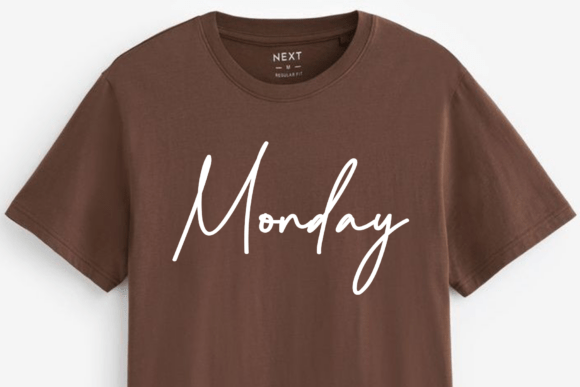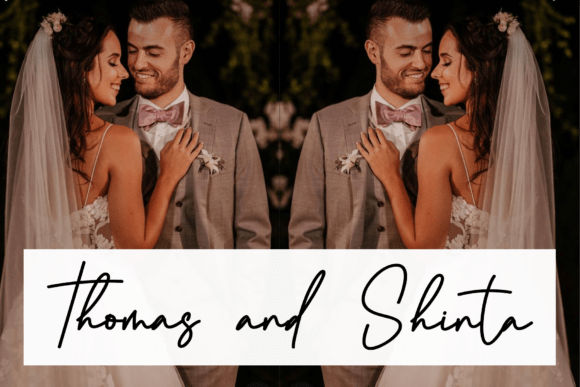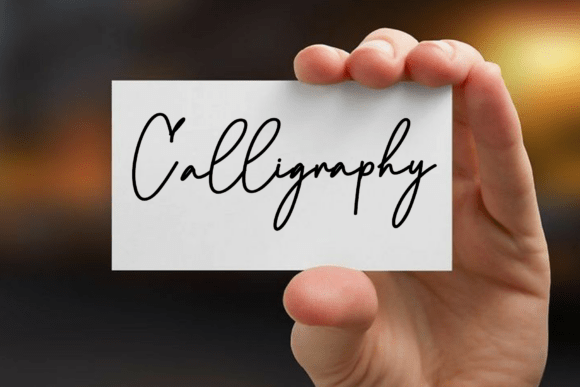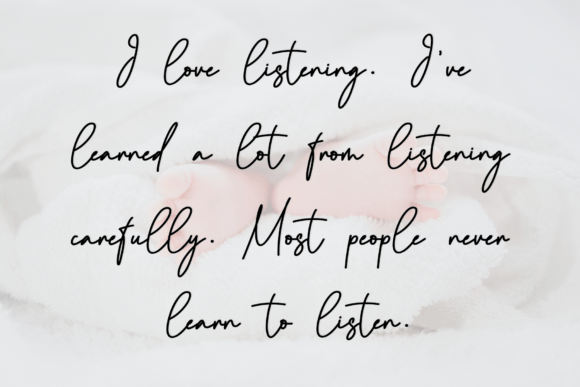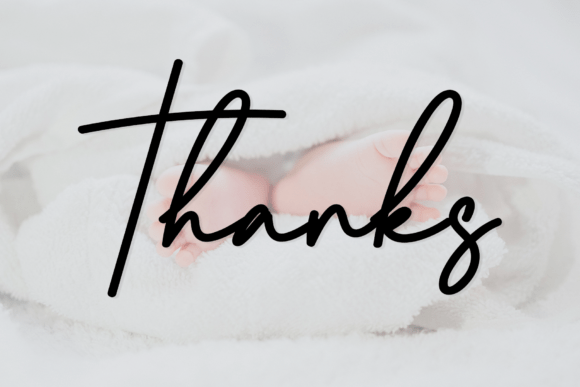
Babyboho Font: Elevate Your Design with Modern Elegance
In the world of typography, fonts play a crucial role in conveying the tone and personality of a brand or design. For those seeking to add a touch of sophistication and luxury to their work, the Babyboho font is an excellent choice. This stunning handwritten script font embodies modern elegance, making it perfect for high-end designs, luxury branding, and editorial content.
The Characteristics of Babyboho Font
Babyboho is a “new style” handwritten script font that boasts fluid, signature-like motion. Its delicate balance of tall ascenders and sweeping loops creates a rhythmic and sophisticated visual flow, setting it apart from other fonts. The font’s unique characteristics make it an excellent choice for designers and crafters looking to add a touch of class to their work.
Perfect for Luxury Branding and High-End Editorial Content
Luxury branding and high-end editorial content require a font that exudes sophistication and elegance. Babyboho font is designed to meet these demands, making it an ideal choice for:
- Luxury branding: Create a lasting impression with a font that screams luxury and sophistication.
- Signature logos: Add a personal touch to your logo with a font that mimics a signature.
- Wedding stationery: Make your wedding stationery stand out with a font that exudes romance and elegance.
- High-end editorial content: Elevate your editorial content with a font that adds a touch of sophistication.
Why Choose Babyboho Font?
With so many fonts available, why choose Babyboho? Here are a few compelling reasons:
- Unique and distinctive: Babyboho font is unlike any other font, making it perfect for designers and crafters looking to stand out.
- Versatile: The font is suitable for a wide range of design applications, from luxury branding to wedding stationery.
- Elegant and sophisticated: Babyboho font adds a touch of class to every word, making it perfect for high-end designs.
Tips for Using Babyboho Font
To get the most out of Babyboho font, here are a few tips:
- Use it sparingly: Babyboho font is best used sparingly, as it can be overwhelming if overused.
- Pair it with a sans-serif font: Pairing Babyboho font with a sans-serif font creates a beautiful contrast that adds visual interest.
- Experiment with different sizes: Experiment with different font sizes to create a visually appealing hierarchy.
In conclusion, Babyboho font is a stunning handwritten script font that embodies modern elegance. Its unique characteristics, versatility, and sophistication make it an excellent choice for designers and crafters looking to elevate their designs. Whether you’re working on luxury branding, signature logos, wedding stationery, or high-end editorial content, Babyboho font is sure to bring an unmistakable touch of class to every word.